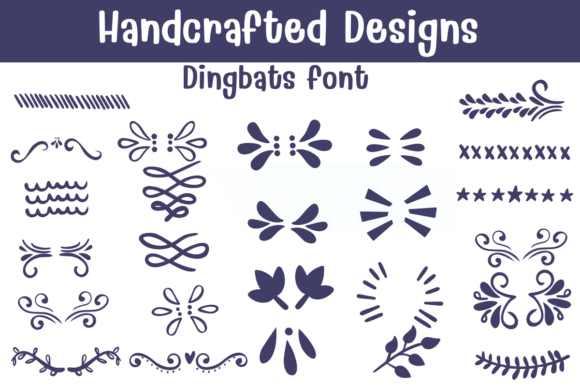
The Perfect Touch of Whimsy: Handcrafted Designs Font
Have you ever been working on a design project, pouring your heart and soul into it, and then, suddenly, you stumble upon the perfect element that takes it from good to great? That’s exactly what happened to me when I discovered the Handcrafted Designs Font. Its elegant flourishes, delicate swirls, and beautiful botanical motifs added a level of sophistication and whimsy to my design that I couldn’t find anywhere else.
Handcrafted Designs Font is a decorative dingbat font that’s specifically designed to add a touch of handcrafted elegance to your designs. Whether you’re creating wedding invitations, cards, logos, or vintage-inspired projects, this font is the perfect addition to your toolkit. With its unique blend of classic and modern elements, it’s a valuable resource for designers who want to add a personal touch to their work.
As a designer, you know how hard it can be to find the perfect font to match your vision. That’s why the Handcrafted Designs Font is such a game-changer. Its versatility and charm make it an essential tool for any designer looking to add a little extra magic to their projects.
Key Features of Handcrafted Designs Font
- Unique Characteristics: The font boasts intricate, handcrafted details and textures, giving it a distinctive, artisanal look that sets it apart from other fonts.
Handcrafted Designs Font Review
As a designer, I’m always on the lookout for unique and high-quality fonts to elevate my projects. The Handcrafted Designs Font caught my attention, and I was excited to dive in and see what it had to offer.
✨ One of the things that works well with this font is its attention to detail. The designer has clearly put a lot of effort into crafting each letter and symbol, resulting in a truly distinctive and charming aesthetic. The font’s texture and imperfections add a touch of personality that’s hard to find in more polished fonts.
✨ Another strength of this font is its versatility. It works well for both digital and print applications, making it a great choice for a wide range of projects. The font’s elegant and refined feel also makes it suitable for luxury or high-end brands.
- ⚠️ Limited character set: One of the main limitations of this font is its limited character set. This means that you may not have access to all the symbols and glyphs you need for certain projects.
- ⚠️ Font size limitations: The font’s texture and imperfections can make it difficult to read at very small sizes. This may be a concern for projects that require a lot of fine print or small text.
Overall, I think the Handcrafted Designs Font is a great choice for designers who want to add a touch of elegance and sophistication to their projects. While it may have some limitations, its unique aesthetic and versatility make it a valuable addition to any designer’s toolkit.
The Handcrafted Designs Font is perfect for:
Project 2: Boho Chic Travel Journal
Create a one-of-a-kind travel journal that captures the essence of your adventures. The Handcrafted Designs Font is perfect for adding a personal touch to your journal’s pages.